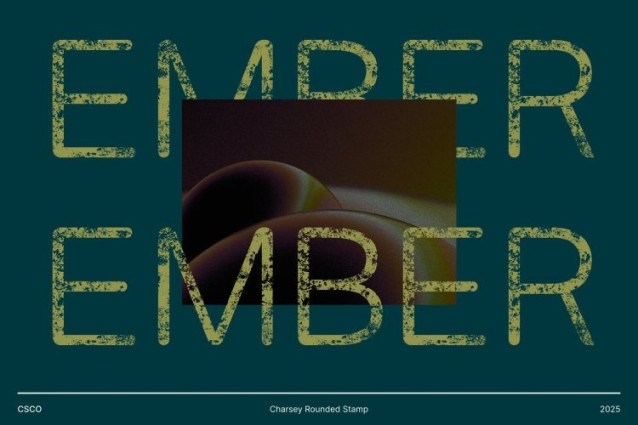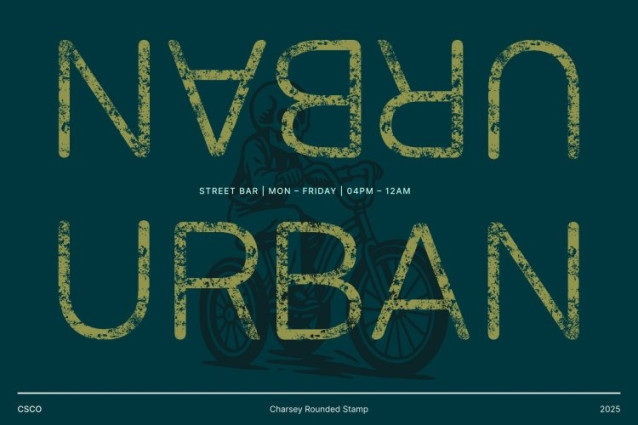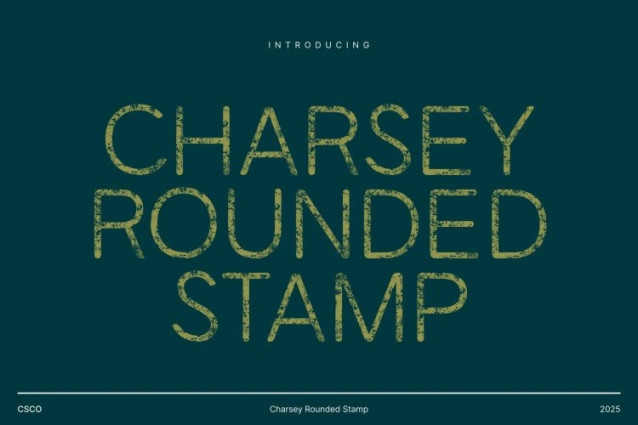
Charsey Rounded Stamp Font
Charsey Rounded Stamp Font This is a modern sans serif font that combines sleek, rounded shapes with strong geometric construction. Its clean lines and balanced proportions convey clarity, professionalism, and confidence, making it an ideal choice for designers who want typography that communicates authority while remaining approachable.
Stamp Texture for Authentic, Handcrafted Appeal
The distinctive stamp effect adds depth, tactile detail, and a touch of imperfection to this font. Each character carries subtle texture variations that emulate hand-stamped lettering, giving the font a unique personality and vintage charm. This handcrafted feel enhances the modern structure of the typeface, creating a dynamic contrast that is visually striking and memorable.
Versatile for Branding, Editorial, and Vintage Design
This font excels in projects where readability, style, and character are key. Its clean geometric base combined with textured detailing makes it perfect for branding, editorial layouts, posters, packaging, and vintage-inspired design. Whether used in bold headlines or supporting text, the font maintains its visual impact across print and digital media.
A Modern Typeface with Strength and Style
By merging contemporary rounded sans serif shapes with expressive stamp texture, this font delivers a unique and versatile display font. It balances modern clarity with vintage personality, making every design feel confident, approachable, and visually engaging.